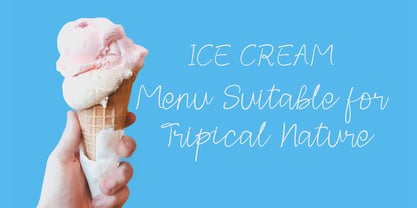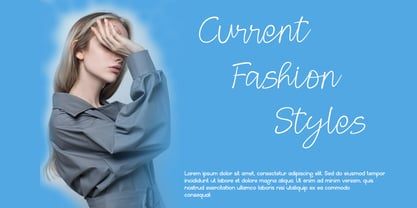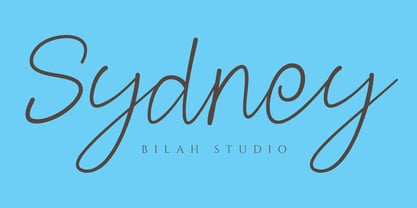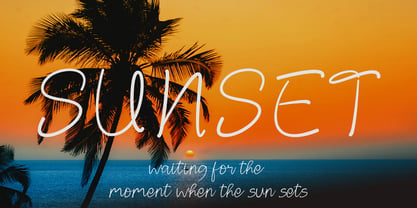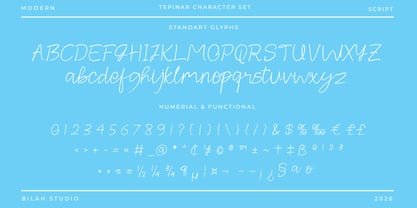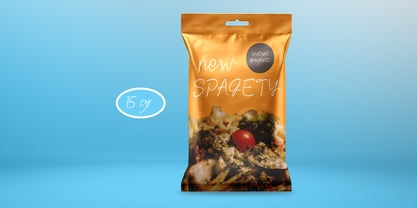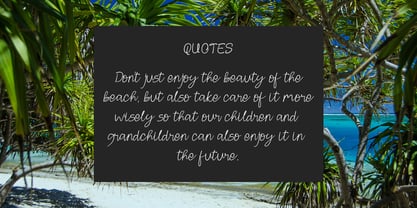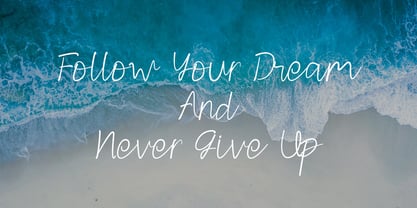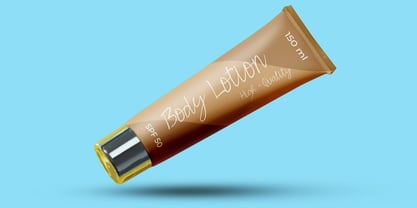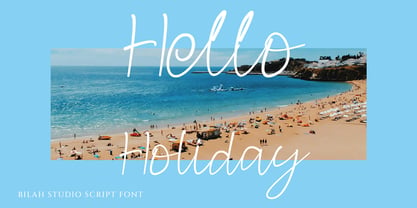
Tepinar
by Bilahstudio
The Tepinar Font Family was designed by Ismunandar Rambe and published by Bilahstudio. Tepinar contains 1 styles. More about this family
Tepinar is an elegant font with a simple yet professional look. We've kept this font elegant, simple, premium, modern, readable, stylish, feminine, girly, attractive, and easy to use. Tepinar is a great choice for watermarks on photography, signature logo designs, quotes, album covers, magazine covers, business cards, and many other design projects. Tepinar can enhance your work's visual appeal.
Designers: Ismunandar Rambe
Current Foundry: Bilahstudio